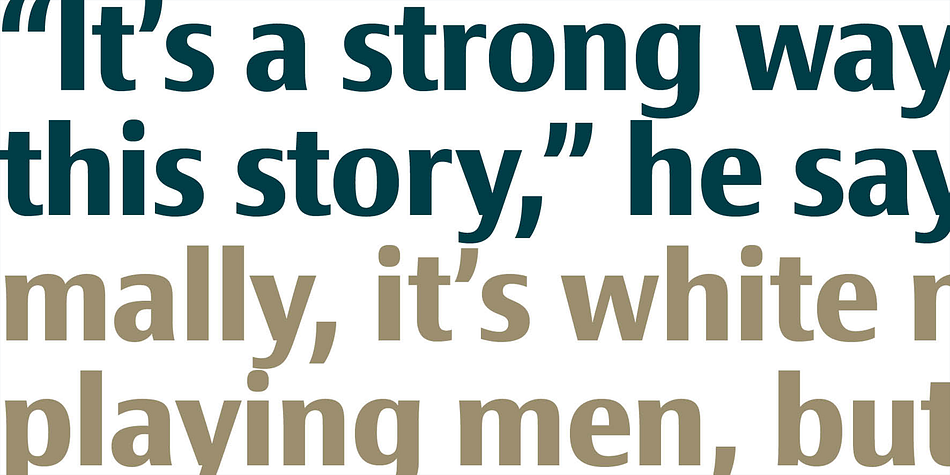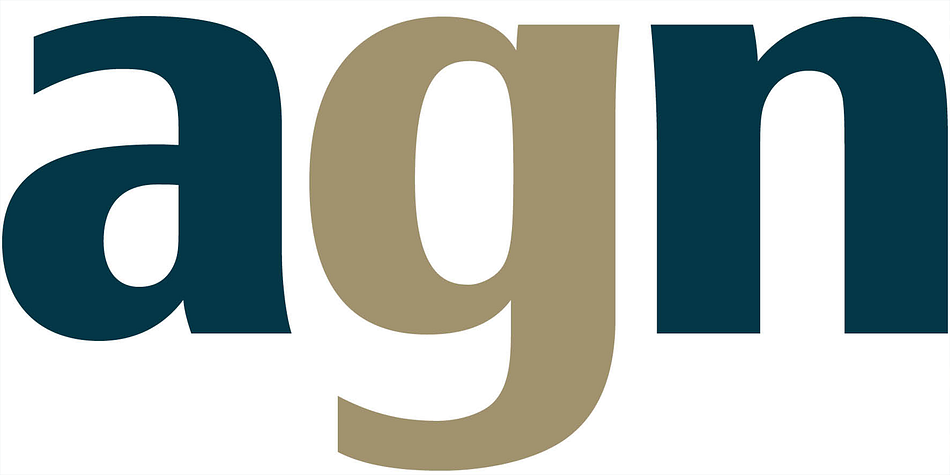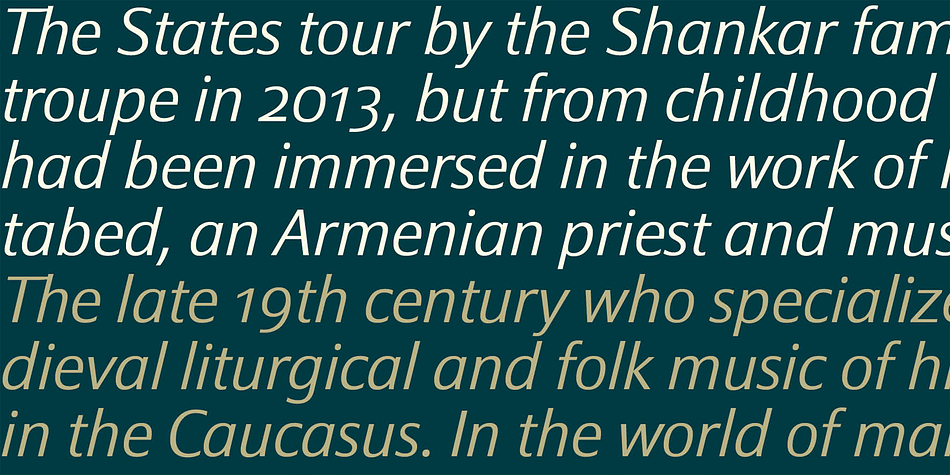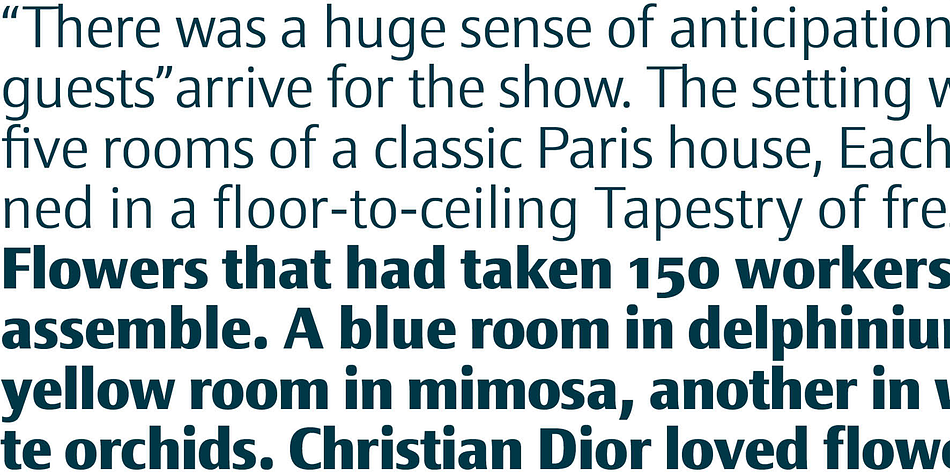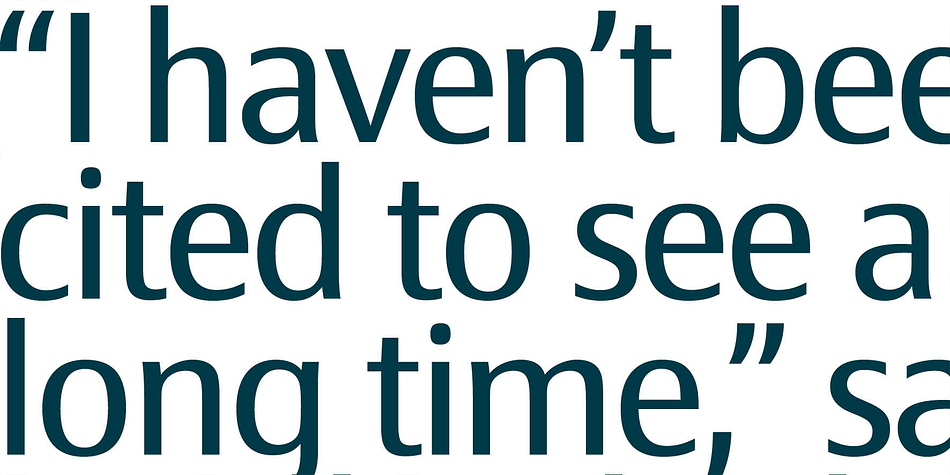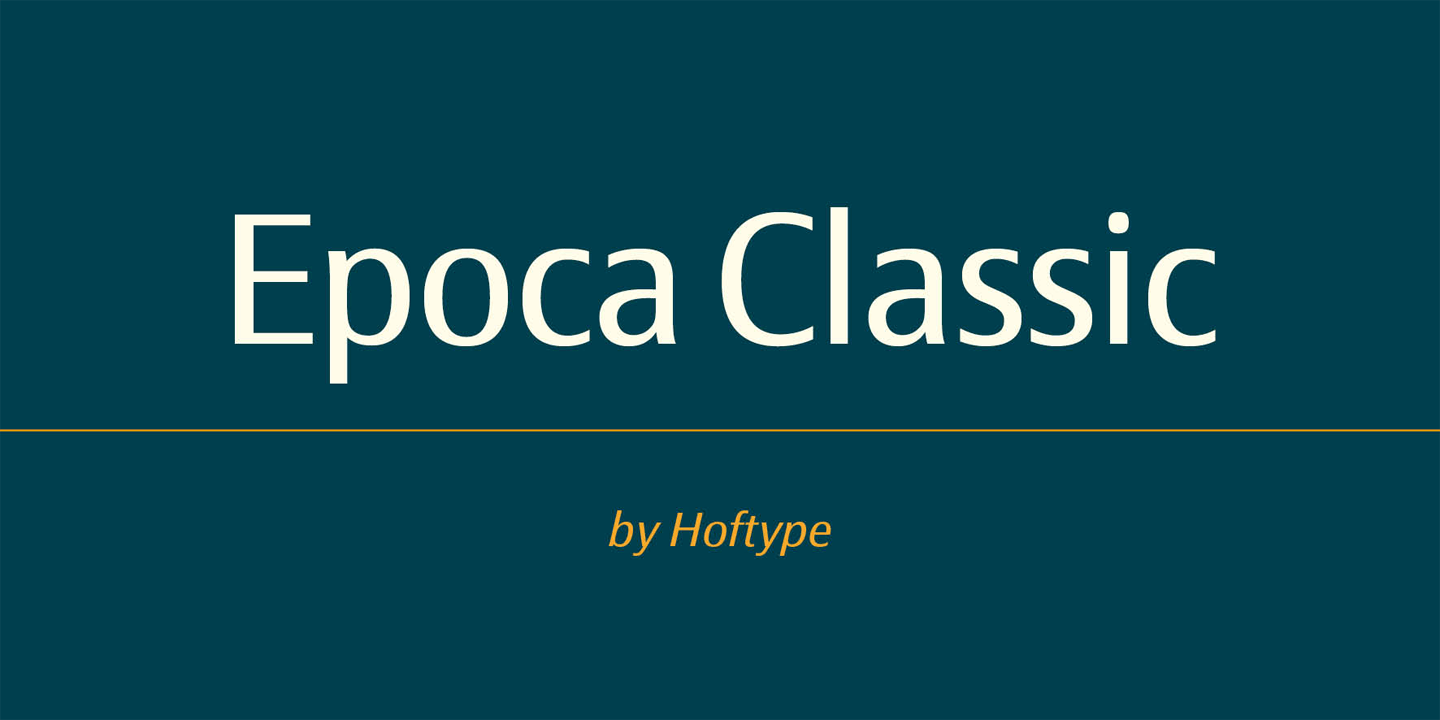
Epoca Classic is a sans serif font family. This typeface has twelve styles and was published by Hoftype.
Epoca-Classic, designed in 2012, is the contrasted sister of Epoca, also suited for text and display.
As is the case with Epoca, Epoca-classic has economical proportions, a neutral appearance and a discreet elegance. It is fresh, crisp and distinguished. Its well-balanced proportions result in an even text flow which allows for pleasant reading even with large amounts of text.
Epoca-Classic comes in twelve weights, in OpenType format and with extended language support for more than 40 languages. All weights contain small caps, standard ligatures, proportional lining figures, tabular lining figures, proportional old style figures, lining old style figures, matching currency symbols, fraction- and scientific numerals.